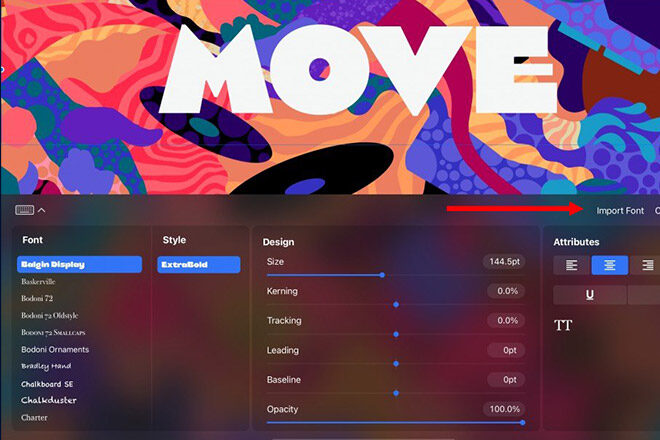
How To Add Fonts To Procreate. It's designed for comic letters and casual. Jack armstrong bb is a playful comic inspired font.
Simply find the file and open it up. Unzip the font in the app and click open the font folder. Once you have your fontsdownloaded and added to procreate, they are easily accessible.
You Will Also Learn The Difference Between An Otf And A Ttf Font And How To Properly Download Them To Your Laptop.
This is the first step to incorporating text into your images in procreate. Once again go to the wrench icon and click on add. In the font section, you should now be able to find your newly imported one in the alphabetical list.
Then choose procreate and it will be automatically installed. Now, while in editing text mode, tap on the edit style button on the top right corner of the keyboard. Import fonts to your ipad.
Next, we'll need to navigate to our procreate folder—our goal is to navigate to the location where we saved/stored our font file. You can import fonts into procreate four ways. Start by tapping on actions (the wrench icon), then add, and then add text.
The Procreate Fonts Are Eina, Impact, And Jack Armstrong Bb.
But, if you’re like me, you probably want to add your own favorite fonts to the mix! Tap on the i icon on the side of the screen to find the open in option. Then, open the font file with ifont and follow the instructions to install the font.
Tap It To Import It, And It Will Appear In The Fonts List In Procreate.
Install fonts in procreate to install fonts in procreate, install the ifont app from the app store first. Tap actions > add > add text. Procreate add text tool already comes with a bunch of default fonts for you to use.